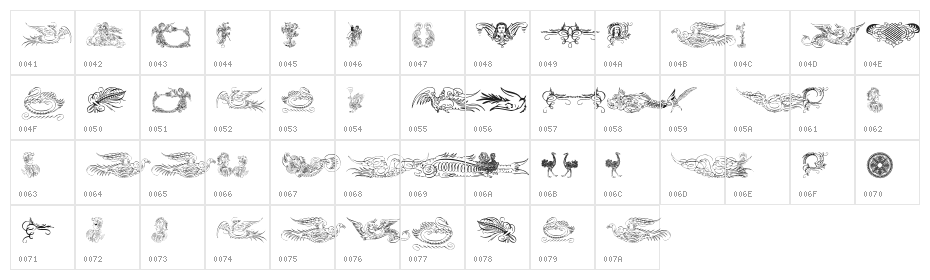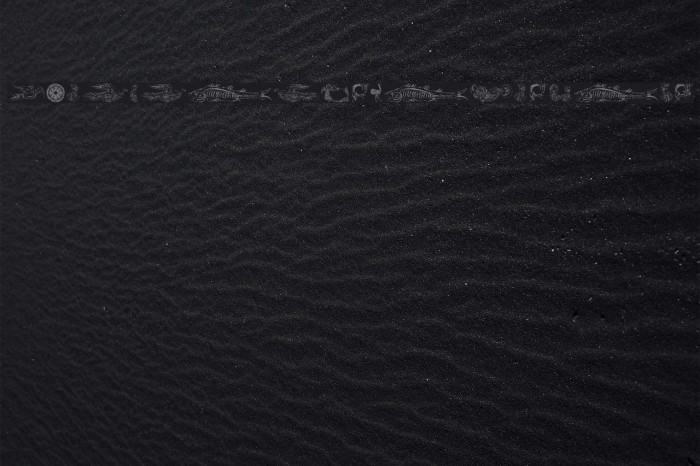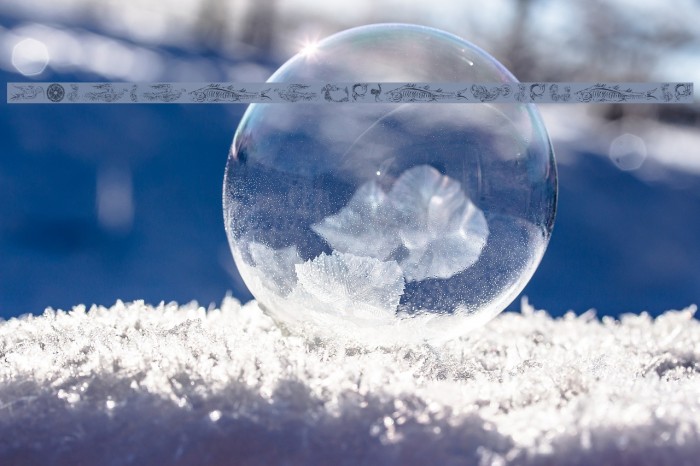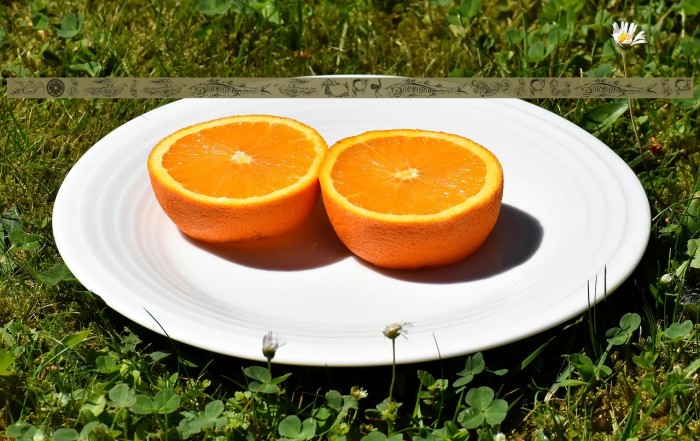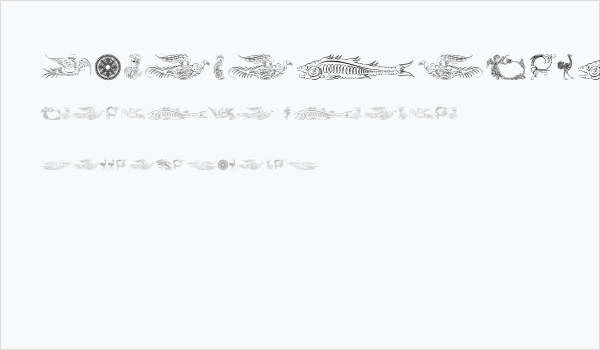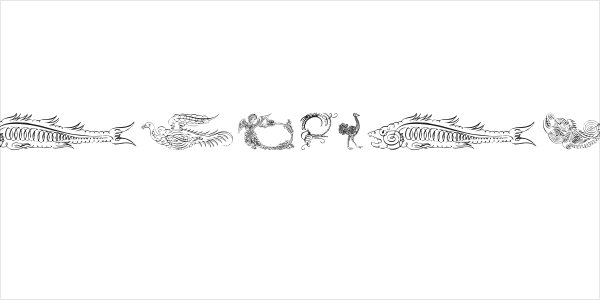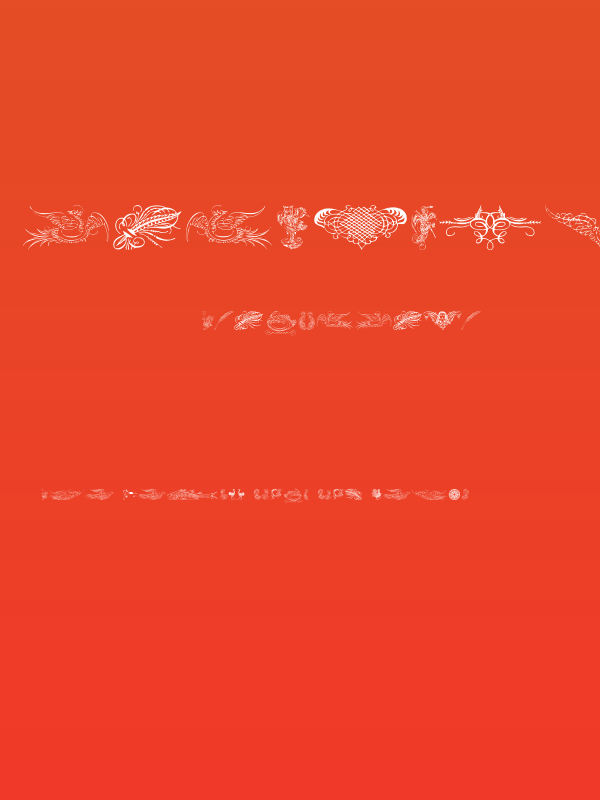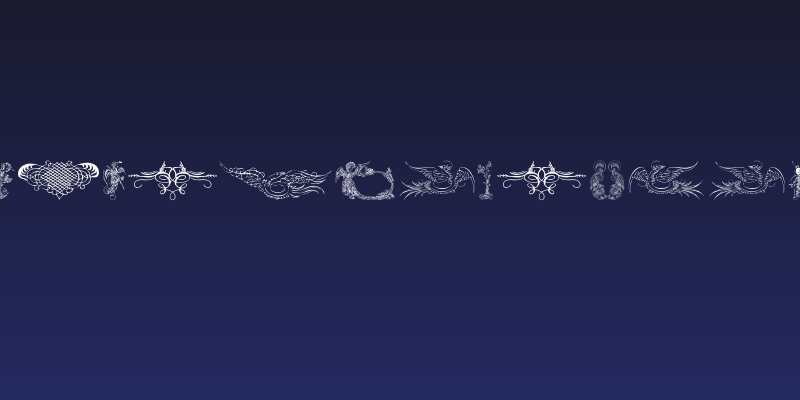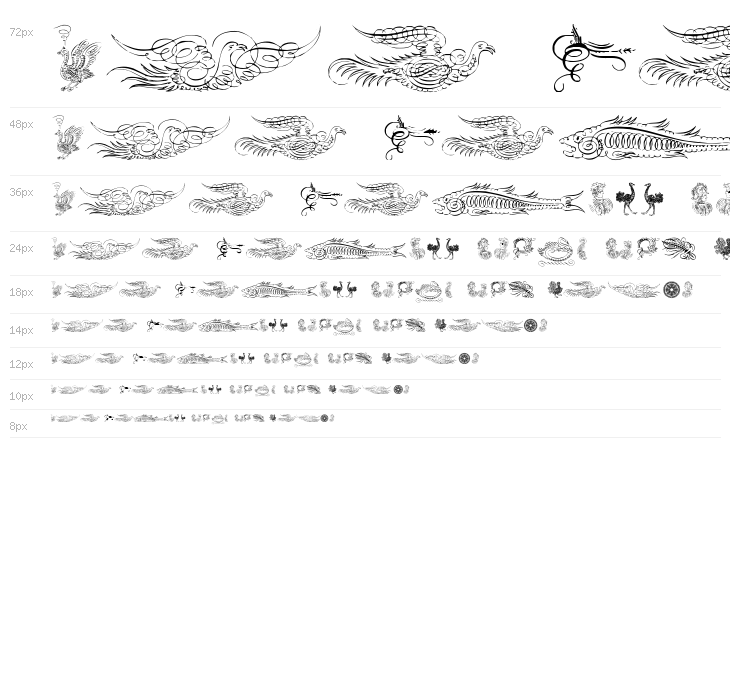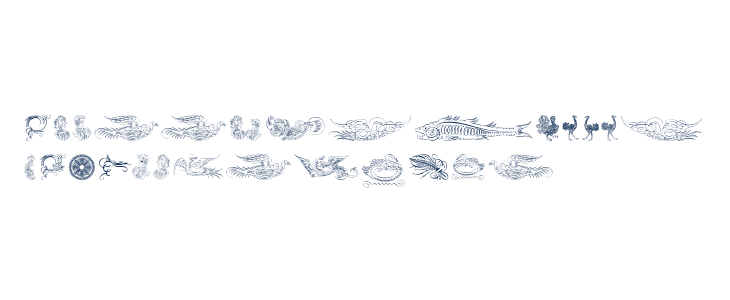
AprendizCaligrafico Font
AprendizCaligrafico Description
Highly decorative and intricate set of ornamental glyphs featuring flourishes, scrollwork, animals, and classical motifs, resembling vintage calligraphic embellishments rather than standard alphanumeric characters.
| Overall Style | Decorative, Vintage, Classic |
| Use Case | Borders, embellishments, decorative accents |
| Proposed Projects | Wedding invitations, certificates, decorative borders, vintage posters, book covers, artistic projects. |